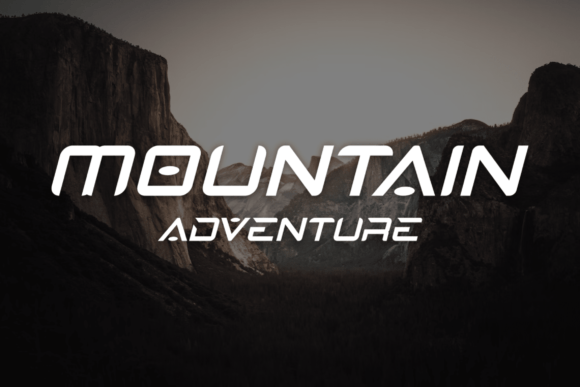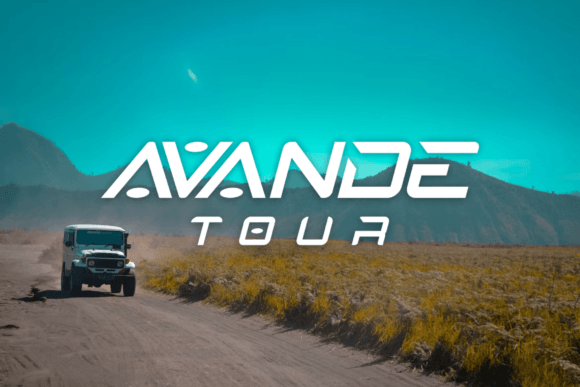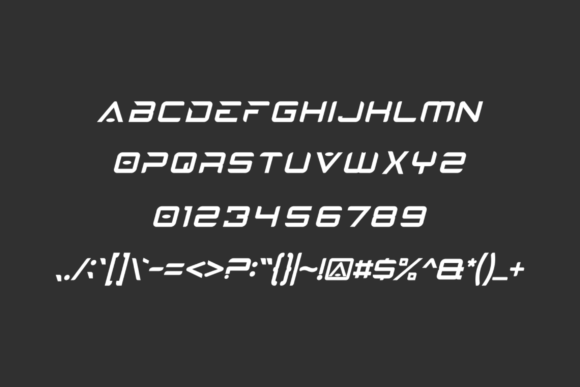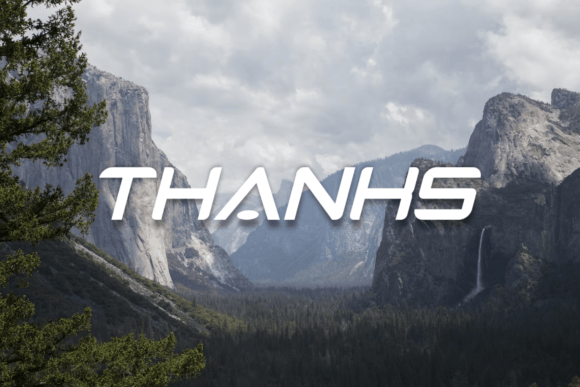
Efaleno Font: The Ultimate Bold and Authentic Display Font for Designers and Crafters
In the world of typography, a good font can make all the difference in creating a lasting impression. For designers and crafters looking for a bold and authentic display font, Efaleno Font is an excellent choice. This versatile font is suitable for a wide range of branding projects, including logos, t-shirt printing, e-sport designs, and many more. In this article, we’ll explore the features and benefits of Efaleno Font and why it’s a must-have for any designer or crafter looking to elevate their creative projects.
What is Efaleno Font?
Efaleno Font is a bold and authentic display font designed to make a statement. Its unique and striking design makes it perfect for projects that require a strong visual impact. The font is carefully crafted to ensure that it looks outstanding in a wide range of contexts, from digital designs to print materials.
Key Features of Efaleno Font
- Bold and Authentic Design: Efaleno Font boasts a bold and authentic design that commands attention. Its unique style is perfect for creating striking logos, posters, and other visual materials.
- Versatility: This font is incredibly versatile and can be used for a wide range of projects, including branding, advertising, packaging, and more.
- Easy to Read: Despite its bold design, Efaleno Font is easy to read, making it perfect for use in digital and print materials.
- High-Quality Design: The font is designed with high-quality craftsmanship, ensuring that it looks great in any context.
Use Cases for Efaleno Font
Efaleno Font is suitable for a wide range of projects, including:
- Logo Design: Create a lasting impression with a bold and authentic logo that showcases your brand’s personality.
- T-Shirt Printing: Add a touch of style to your t-shirt designs with Efaleno Font’s unique and striking design.
- E-Sport Designs: Take your e-sport designs to the next level with a font that’s bold, authentic, and attention-grabbing.
- Branding and Advertising: Use Efaleno Font to create eye-catching branding and advertising materials that leave a lasting impression.
Benefits of Using Efaleno Font
By using Efaleno Font, designers and crafters can enjoy a range of benefits, including:
- Unique and Striking Design: Efaleno Font’s bold and authentic design sets it apart from other fonts, ensuring that your projects stand out from the crowd.
- Time-Saving: With Efaleno Font, you can create professional-looking designs in no time, saving you time and effort.
- Consistency: Use Efaleno Font across multiple projects to create a consistent visual identity for your brand or personal style.
In conclusion, Efaleno Font is an excellent choice for designers and crafters looking for a bold and authentic display font. Its versatility, unique design, and ease of use make it perfect for a wide range of projects, from logos and t-shirt printing to e-sport designs and branding materials. With Efaleno Font, you can elevate your creative projects and create a lasting impression on your audience.